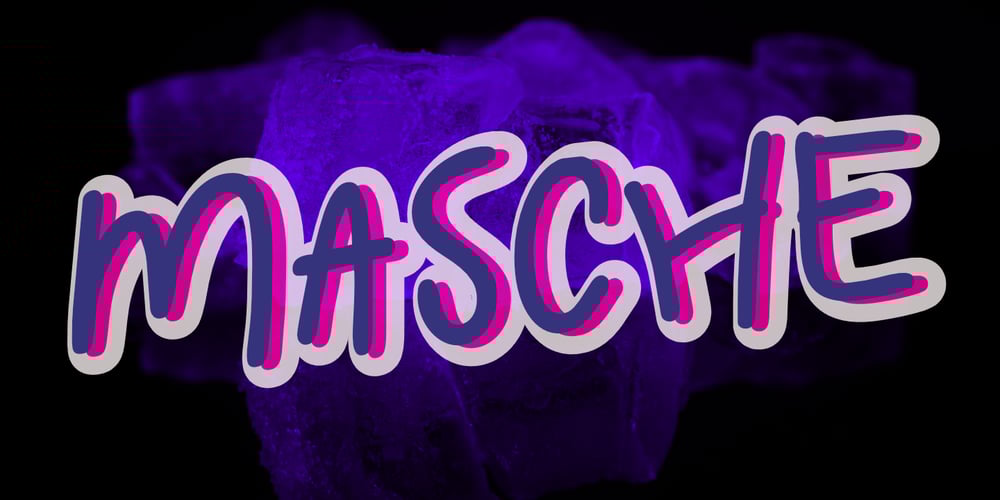
Masche
Masche font
Masche Font Family was designed by Aldy Sidik and published by Epiclinez. Masche contains 1 styles and family package options. Add a touch of whimsy and charm to your designs with Masche, the ultimate fun handwritten font. With its quirky and playful style, this font is bursting with a personality that will instantly bring your designs to life. Whether you’re crafting eye-catching quotes, captivating posters, or eye-popping headlines, Masche has got you covered. Its versatility knows no bounds – perfect for product packaging that needs that extra pop or any design project that calls for a dose of creativity. With Masche, unleashing your inner artist has never been so effortless!Masche features : Standard Latin Numbers, symbols, and punctuations Multilingual Support. Fully accessible without additional design software Simple Installations Works on PC & Mac Thank You.